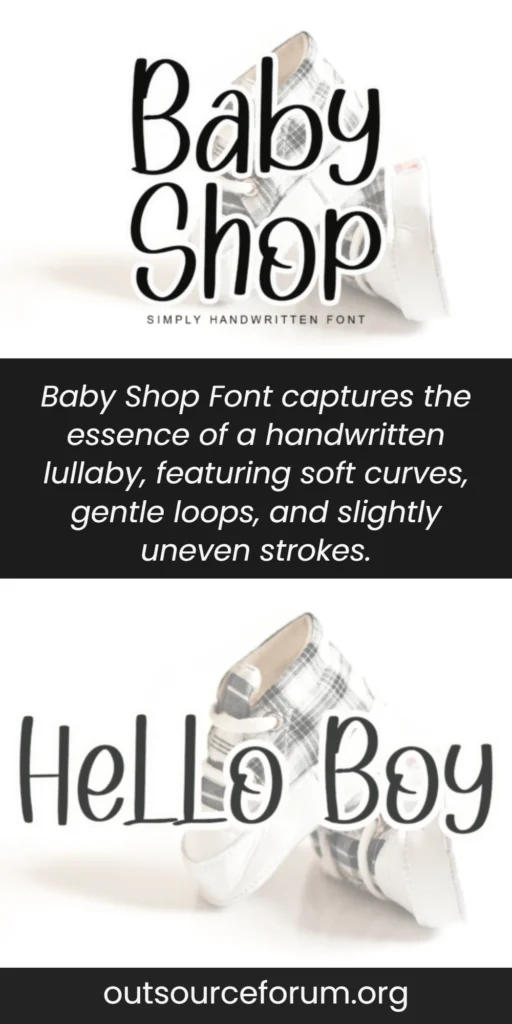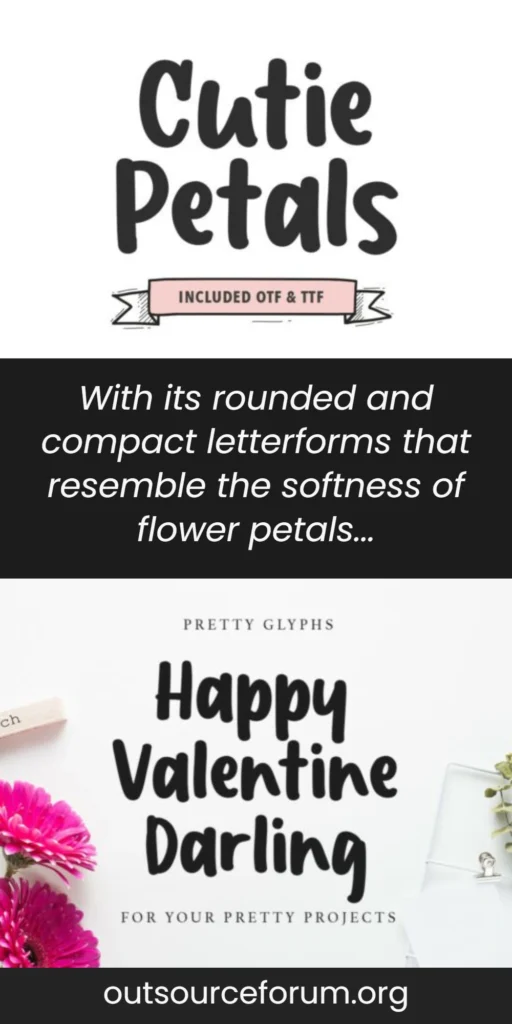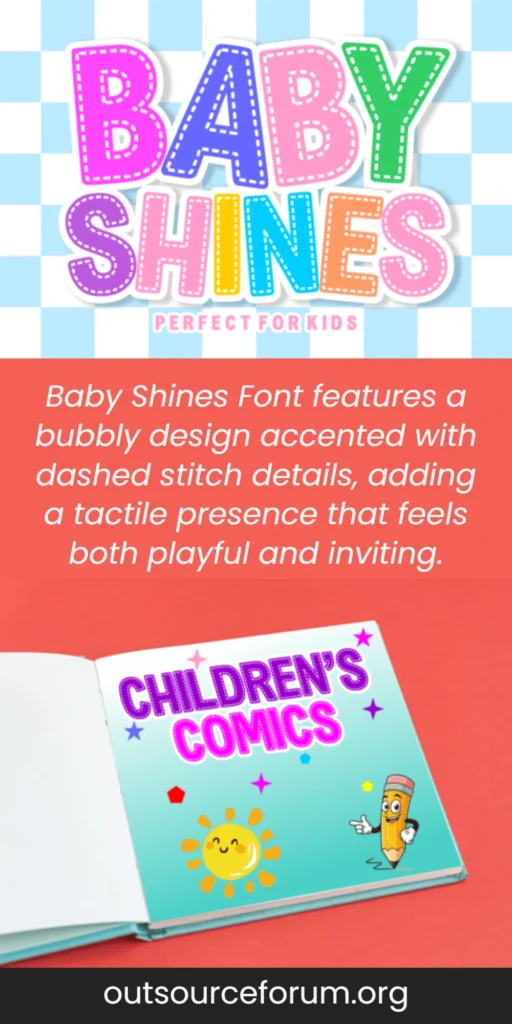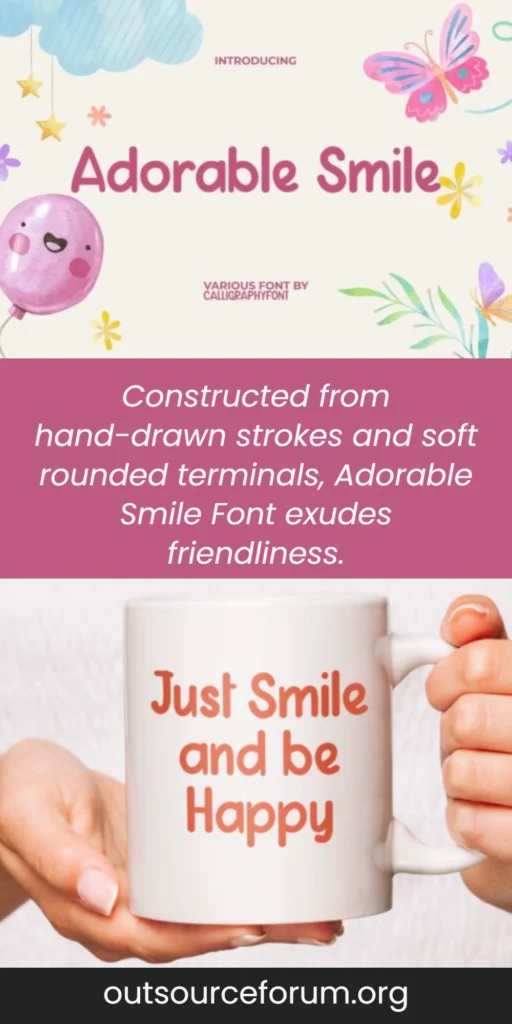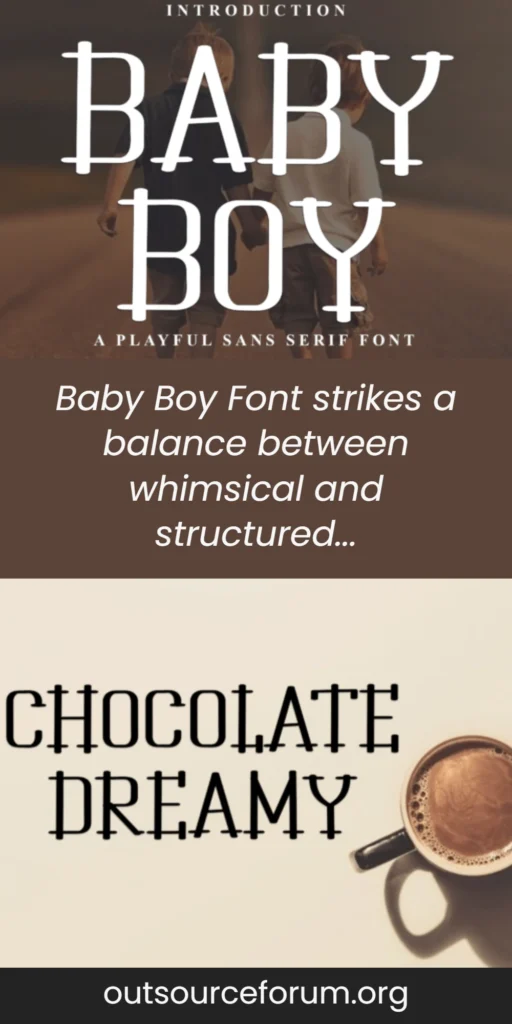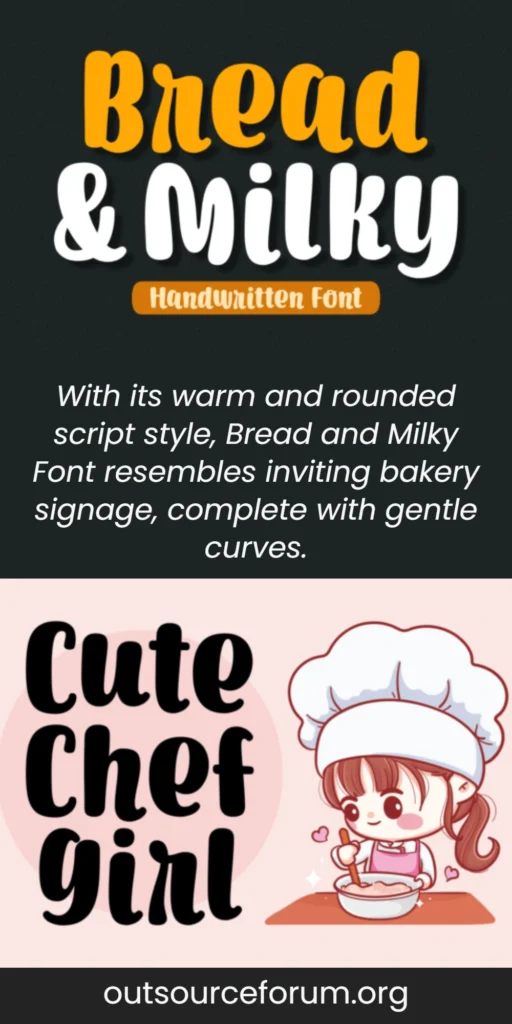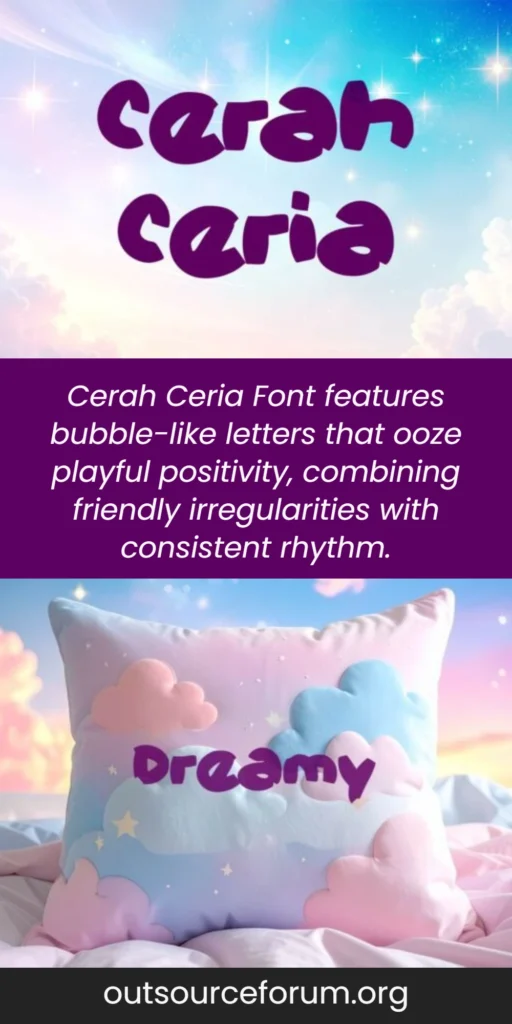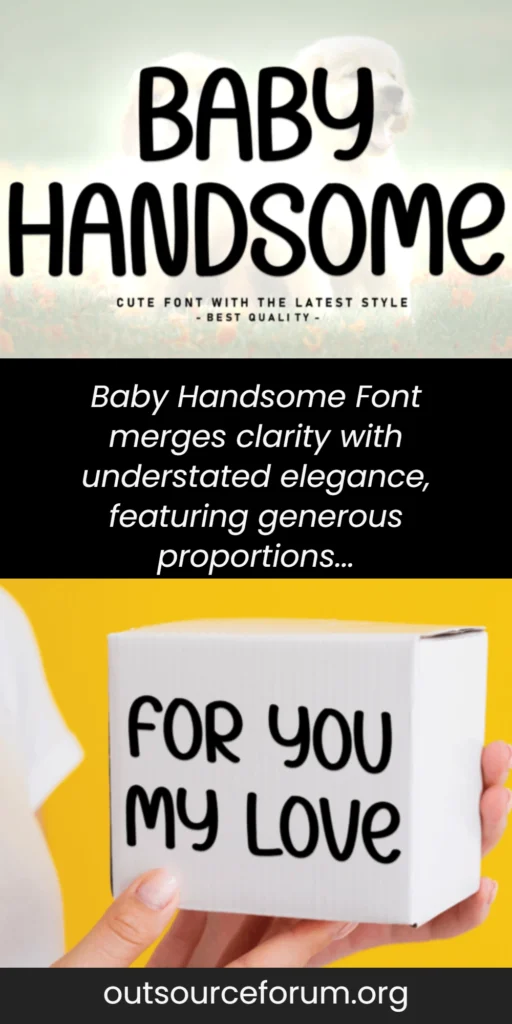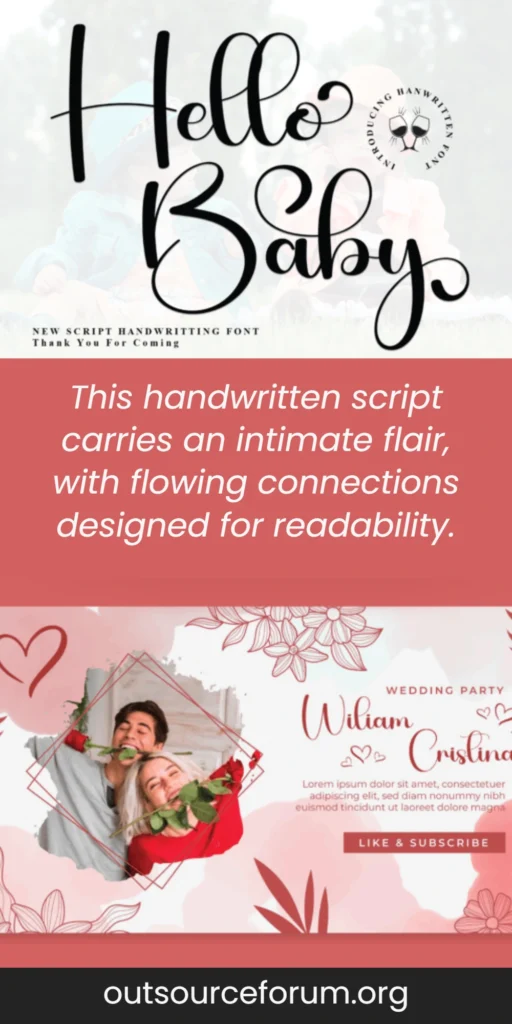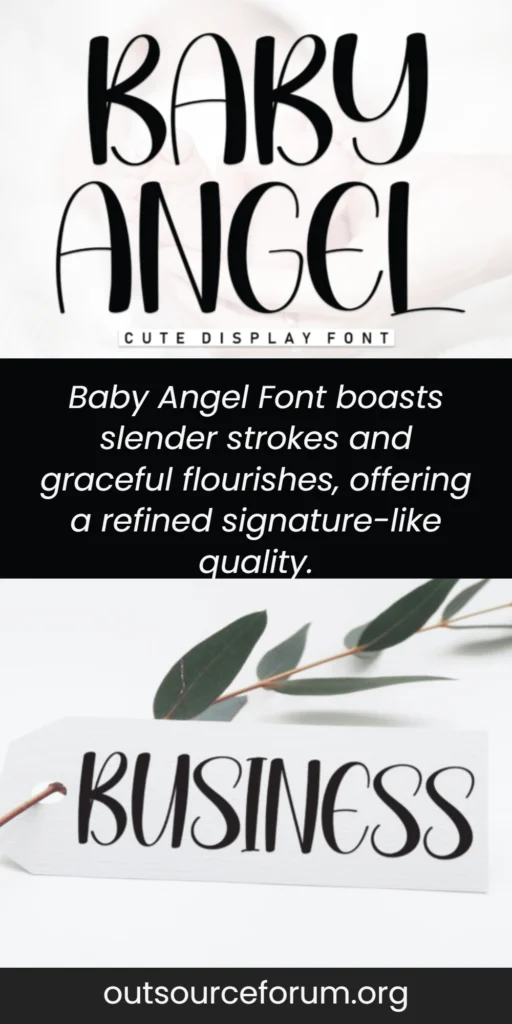
Ideal Fonts for Baby Shop Owners and Designers
When building a brand for a baby shop or crafting designs for children’s products, selecting the right font is crucial. A well-chosen typeface can convey warmth, readability, and a sense of playfulness, all while maintaining a modern aesthetic. Below is an array of 23 fonts carefully curated to help elevate your branding, complete with insights on their best use cases, pairing suggestions, and unique characteristics. From product tags to signage, these fonts ensure your communications are both engaging and approachable.
1. Baby Shop Font
Baby Shop Font captures the essence of a handwritten lullaby, featuring soft curves, gentle loops, and slightly uneven strokes. This set of characters evokes warmth and personality while remaining easy to read. Ideal for baby shower invitations, nursery art, and boutique labels, this font shines in applications where a friendly atmosphere takes precedence over formality. It pairs well with geometric sans-serif fonts for body text and works beautifully in craft projects.
Recommendation:
I prefer Baby Shop Font for projects that need a human touch—ideal for small businesses offering handmade baby items and charming stationery.
2. Cutie Patals Font
With its rounded and compact letterforms that resemble the softness of flower petals, Cutie Patals Font brings an organic flair to any design. The type’s charming strokes and friendly apertures enhance readability, making it suitable for product labels and kid-focused apparel. Combine it with soft illustrations and pastel colors to evoke a nostalgic feel, or use it alongside a clean serif to add contrast for lifestyle branding.
Recommendation:
I reach for Cutie Patals Font when I want to evoke a sense of warmth and familiarity—perfect for playful logos and casual packaging.
3. Baby Shines Font
Baby Shines Font features a bubbly design accented with dashed stitch details, adding a tactile presence that feels both playful and inviting. The heavy outer forms maintain legibility even from a distance, making this font an excellent choice for bold headlines, birthday party signage, and educational materials. The stitched effect creates visual interest, especially when used for product photography.
Recommendation:
I choose Baby Shines Font when I want a handcrafted look that packs a punch—great for apparel and cheerful event decorations.
4. Adorable Smile Font
Constructed from hand-drawn strokes and soft rounded terminals, Adorable Smile Font exudes friendliness. Its youthful and optimistic vibe is perfect for greeting cards, toy labels, and playful packaging where a casual tone is cherished. The intentional softness gives it warmth, while the legible design ensures effectiveness at display sizes.
Recommendation:
Adorable Smile is my go-to font for creating an inviting brand identity—perfect for children’s boutiques and playful marketing materials.
5. Baby Boy Font
Baby Boy Font strikes a balance between whimsical and structured, featuring distinct “button” terminals that evoke the essence of stitched toys. Its clarity in smaller sizes makes it suitable for nursery art and event invitations, as well as educational apps aimed at younger audiences. Pair it with simple geometric sans fonts for seamless integration across designs.
Recommendation:
I often select Baby Boy Font for its cheerful clarity—ideal for nursery signage and playful educational materials that need a personal touch.
6. Bread and Milky Font
With its warm and rounded script style, Bread and Milky Font resembles inviting bakery signage, complete with gentle curves. This font radiates a cozy vibe and is suitable for café menus, product labels, and casual apparel where a homemade touch is desired. Its effectiveness is maximized in larger sizes, perfect for brand names and headlines.
Recommendation:
I use Bread and Milky Font for a home-baked feel on café labels and seasonal merchandise; it photographs beautifully on textured stocks.
7. Cerah Ceria Font
Cerah Ceria Font features bubble-like letters that ooze playful positivity, combining friendly irregularities with consistent rhythm. The font’s lighter shapes shine in projects aimed at children, making it ideal for apparel tags and storybook covers. When combined with neutral or understated typeface styles, it creates an excellent hierarchy of information.
Recommendation:
Cerah Ceria Font is my top choice when I need an approachable design; it’s great for children’s products and cheerful branding.
8. Baby Handsome Font
Baby Handsome Font merges clarity with understated elegance, featuring generous proportions that ensure long text blocks remain readable. Ideal for minimal branding and editorial use, this font presents a polished touch that’s also very versatile. Pair it effectively with soft scripts to add personality without overpowering your design.